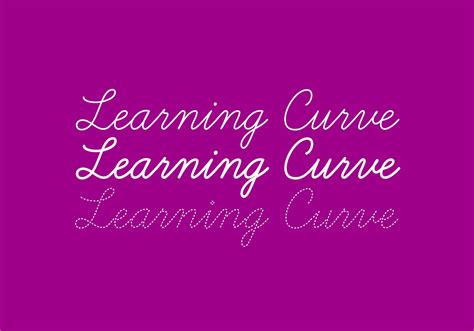
Master the Art of Writing with Learning Curve Font - The Only Typeface that Combines Beauty and Functionality with Elegant Lines!
Master the Art of Writing with Learning Curve Font - The Only Typeface that Combines Beauty and Functionality with Elegant Lines!Are you tired of using plain and uninspiring fonts for your written works? Have you been searching for a typeface that can make your words look more beautiful and captivating? Look no further because Learning Curve font is the solution you have been looking for!This unique typeface is the only one that combines beauty and functionality with elegant lines. It has been expertly crafted to give your writings a touch of sophistication, elegance and professionalism.With Learning Curve font, you can easily impress your readers and make them want to keep reading. This font is perfect for all kinds of writings, including essays, articles, blog posts, emails, letters, and even creative writing pieces.What makes Learning Curve font stand out from the rest is its beautiful cursive style that is easy on the eyes and gives your words a flowy and elegant feel. It is so beautiful that it is perfect for personal use like invitations, notes, and greeting cards.But Learning Curve font is not just about beauty; it is also highly functional. Its legibility is unmatched, and it’s perfect for long-form articles or any piece that requires a significant amount of text.Moreover, using Learning Curve font is very easy. It can be downloaded onto your computer, and you can use it on any application like Microsoft Word, Adobe Photoshop or Illustrator. So, why settle for plain old regular fonts when you can add some sophistication and elegance to your work with Learning Curve font!In conclusion, Learning Curve Font is an excellent option for anyone looking for a typeface that combines beauty and functionality. It is perfect for both personal and professional use and will give your writing a touch of elegance that will leave a lasting impression on your readers. So, what are you waiting for? Download Learning Curve font today and take your writing skills to the next level!
Writing is an art that requires skill and dedication. It is something that cannot be mastered overnight. Over time, however, people develop their writing skills and style, and the best way to showcase this is through the right font. The Learning Curve is a typeface that combines beauty and functionality, offering elegant lines optimized for a better reading experience.
The History of Typefaces
Typefaces have evolved throughout history, starting from handwritten scrolls to the modern digital fonts. Many designers around the world continuously experiment with different fonts to create something unique for a particular purpose. While there are many typefaces out there, only very few combine aesthetics with functionality. The Learning Curve is one such font that has been carefully crafted to provide the perfect balance.
The Importance of Font Choice in Writing
Choosing the right font for your writings is essential, as it affects the readability of the text. A font with poor readability can lead to eye strain, fatigue and reduced focus. On the other hand, a well-designed font can make reading enjoyable, increase comprehension and attract more readers. Learning Curve is one such font that has all these qualities, making it an ideal choice for writers.
The Unique Features of Learning Curve Font
The Learning Curve is not just another typeface, but it stands out with its unique features. The font is designed with elegant curves and lines that give your writing an artistic look, while maintaining readability at all times. Its hand-drawn design offers a sense of authenticity rarely found in digital fonts, hence making it distinctive in the digital world.
Mastering the Art of Writing with Learning Curve Font
As the name suggests, the Learning Curve is a font that takes time to master, but once you do, it can elevate your writing to the next level. Its beauty and functionality will help you present your ideas in a more appealing and readable manner, keeping the attention of your audience from the start to the end of your text.
Comparison with other Fonts
In this section, we compare the Learning Curve with two other popular fonts, Times New Roman and Arial.
| Features | Learning Curve | Times New Roman | Arial |
|---|---|---|---|
| Readability | Excellent | Good | Good |
| Aesthetics | Excellent | Average | Average |
| Uniqueness | Very High | Low | Low |
Readability
As shown in the table above, the Learning Curve font offers excellent readability compared to Arial and Times New Roman. The elegant curves and lines make the words easy to flow, making it easier for readers to follow along without any strain.
Aesthetics
When it comes to aesthetics, Learning Curve is simply exceptional, surpassing the other two fonts by far. With its unique hand-drawn style, this font is unmatched in terms of beauty and artistic flair.
Uniqueness
In terms of uniqueness, Learning Curve tops the list. Its hand-drawn style makes it stand out from thousands of digital fonts available on the market today.
Final Thoughts
As a writer, choosing the right font may seem like a small task, but it can have a significant impact on how your work is received. The Learning Curve is an excellent choice for those seeking to impress their readers with their writing style, thanks to its unique features and a perfect balance of aesthetics and functionality. So, if you want to take your writing to the next level, consider mastering the art of writing with Learning Curve font today!
Master the Art of Writing with Learning Curve Font
If you're a writer or just someone who loves to write, then Learning Curve is the perfect font to make your writing stand out. This beautiful typeface combines beauty and functionality, with elegant lines that will make your words look more attractive and professional.
Learning Curve is easy to read, making it ideal for anything from books and articles to social media posts and personal correspondence. Plus, it's versatile enough to be used in both formal and informal contexts without losing its charm.
By using Learning Curve font, you'll be able to take your writing to the next level and truly master the art of communication. So why not give it a try today?
Using Learning Curve font can help improve your handwriting by providing a model for consistent letter formation and spacing. It can also add a touch of elegance and professionalism to your written work. - Is Learning Curve font easy to read?